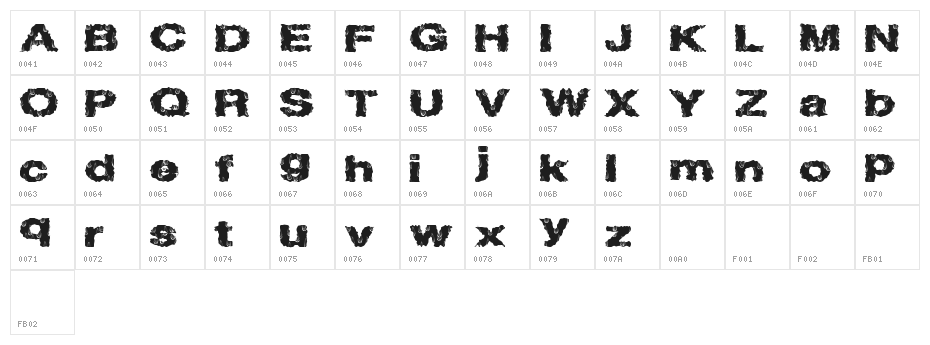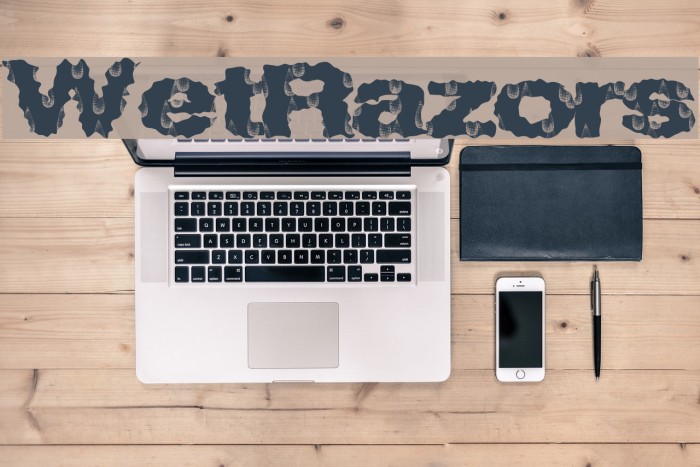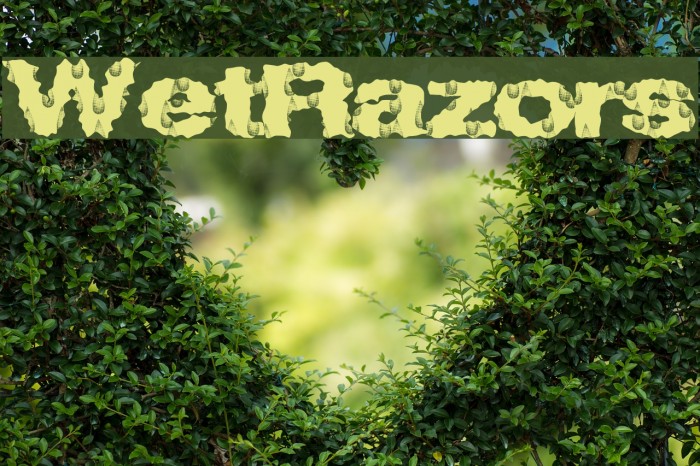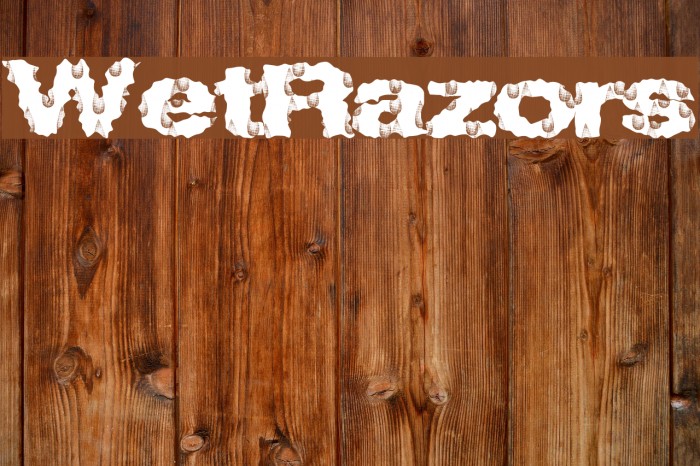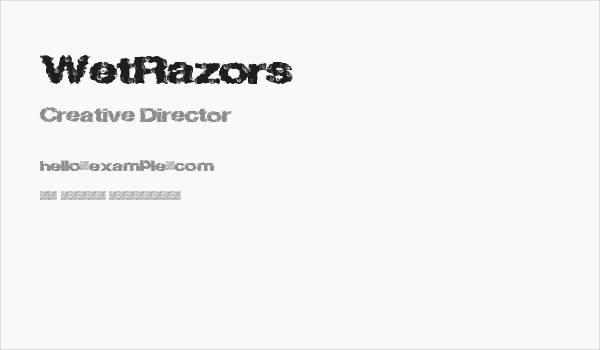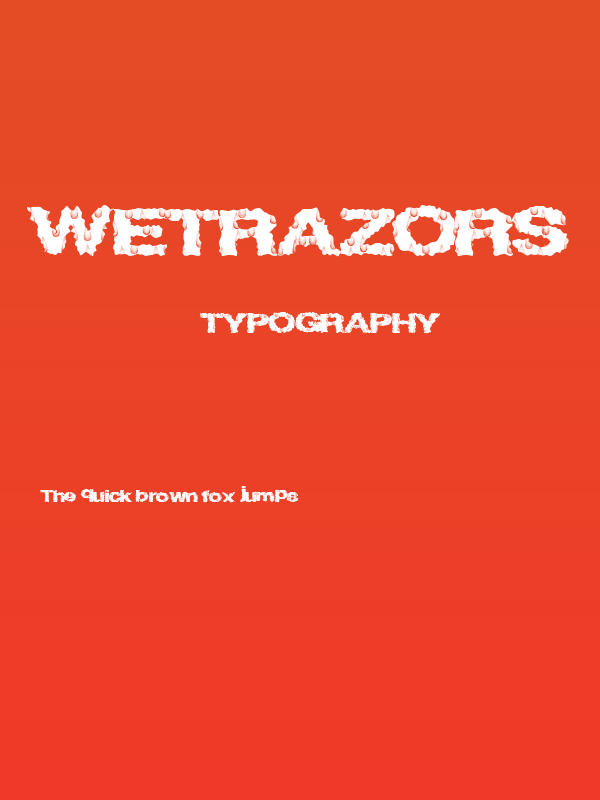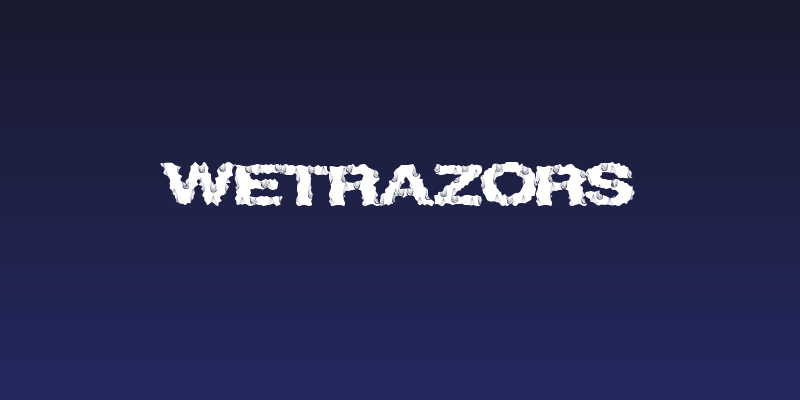
WetRazors Font
WetRazors Description
This font features a rugged, distressed appearance, reminiscent of worn textures or eroded surfaces. The characters are bold and heavily stylized, with irregular edges that give a sense of movement and dynamism. The uppercase and lowercase letters maintain a consistent style, creating a cohesive look across the alphabet. The numbers and special characters follow the same design principles, ensuring uniformity throughout. This font's unique texture makes it stand out, ideal for projects that require a bold, eye-catching aesthetic.
| Proposed Projects | Ideal for poster designs, album covers, branding for edgy or alternative products, and any project needing a striking, unconventional typeface. |